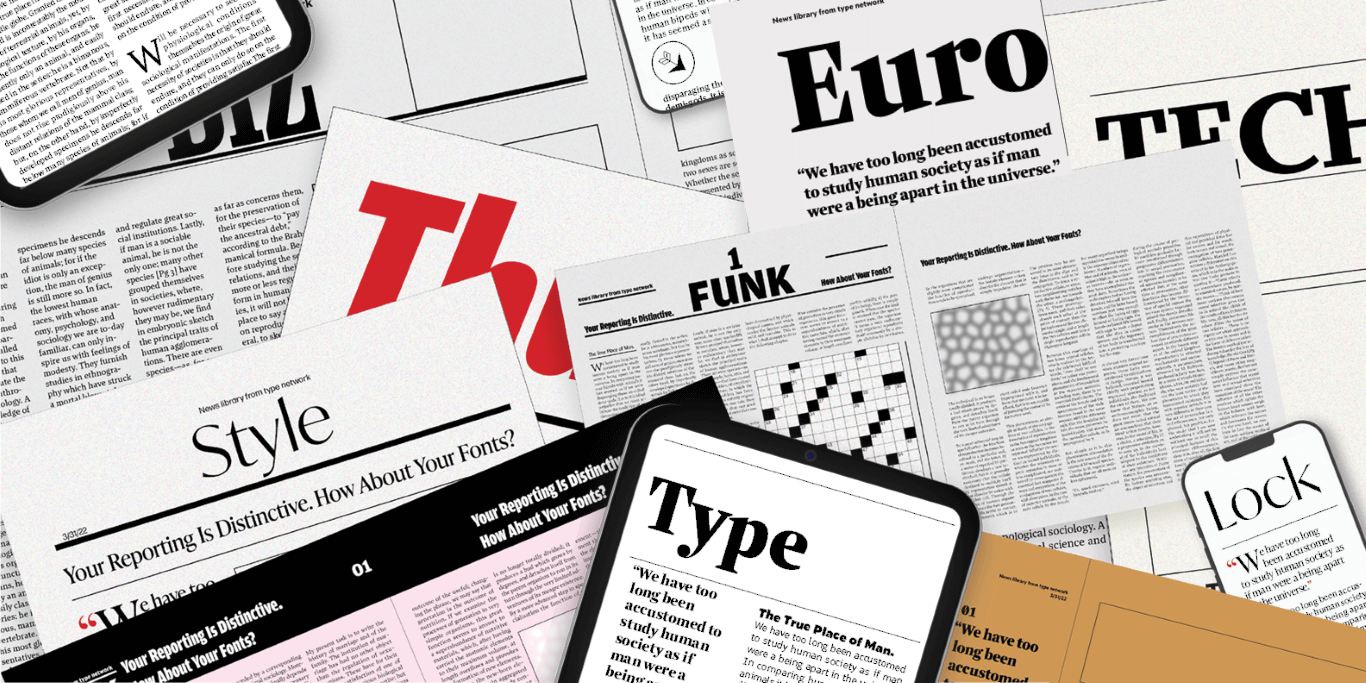
Your reporting is distinctive. How about your fonts?
It may be time to reinforce your publication’s voice and personality . . . with type.
Type Network now offers collections of fonts for headline, display, text, graphics, and UI, curated especially for news.
Your site–app, paper, or magazine—needs good typography to communicate directly with readers, and to stand out from the crowded content environment.
Or, you can put your own library together, with TN experts as your consultants.
Tech (nerdy web)
Style (leading edge fashion)
Biz (serious stuff)
Thunder (classic Fleet Street)
Funk (the other street)
Euro (Noordzij News)
Claridad (Danilo)
Data (table-centric)
Sweet (the good news)
Choose from 700 families in the TN catalog. Our typographers help you make distinctive pairings of
typefaces.